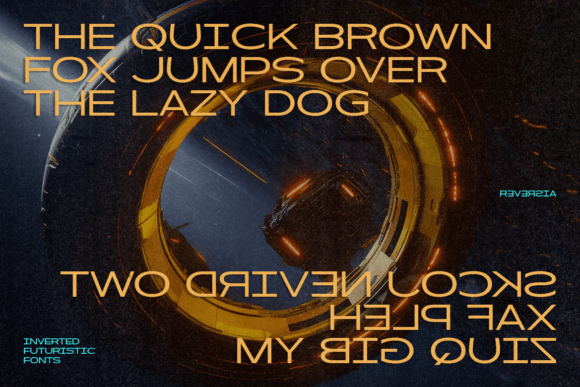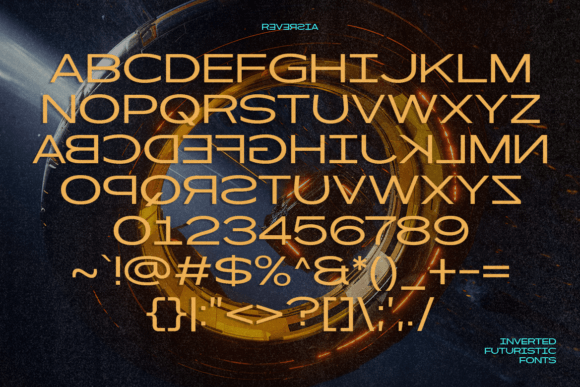
Introduction to Reversia Font
Have you ever stared at a blank canvas, unsure of where to start your next creative project? The blank page can be intimidating, but what if it was your chance to break free from the ordinary and unleash your imagination? For designers, this is the moment where inspiration strikes, and the possibilities are endless. It’s the moment when you can experiment with bold ideas, push boundaries, and create something truly unique.
As a design resource, Reversia Font offers the perfect opportunity to elevate your creative projects to the next level. With its avant-garde appeal, this innovative font challenges the status quo and invites you to explore new horizons. Whether you’re working on a high-quality design or a free download project, Reversia Font is the perfect tool to add a touch of sophistication and creativity to your work.
Imagine being able to create designs with a transparent background, allowing your message to shine through without distractions. With Reversia Font, you can achieve this and more, making it an invaluable asset for designers looking to take their creative projects to new heights.
Key Features of Reversia Font
- Unique, modern font with a transparent background, allowing for versatile use in various design contexts.
- Reversia Font is a creative, artistic design element that can be used to add a touch of elegance to any project.
- Perfect for designers, artists, and creatives looking for a high-quality, free design resource to elevate their work.
- Can be used in a variety of creative projects, including graphic design, digital art, and typography-based designs.
Honest Review: Reversia Font
I recently stumbled upon the Reversia Font, and I must say it’s a solid addition to any designer’s toolkit. As a design resource, it’s a high-quality font that’s perfect for creative projects where a unique aesthetic is required.
One of the standout features of the Reversia Font is its transparent background, which makes it easy to use as a drop shadow or overlay in your designs.
- Transparent background makes it easy to use in various design scenarios
- Limited character set, which may not be suitable for large-scale text-based projects
- May not be as versatile as other fonts, requiring more careful consideration in design choices
Overall, the Reversia Font is a solid choice for designers looking for a unique and high-quality font for their creative projects. While it has some limitations, its transparent background and free download make it a great resource to have in your toolkit.
Getting the Most Out of Reversia Font
For optimal results, use Reversia Font in conjunction with other design elements to create a visually appealing design. Experiment with different font sizes, colors, and styles to find the perfect combination for your creative project. With Reversia Font, you can create unique and eye-catching designs that stand out from the crowd.
Reversia Font is a versatile design resource that can be used in a variety of creative projects, including logos, business cards, posters, and social media graphics. Its high-quality, transparent background makes it a great choice for designs that require a clean and modern look.